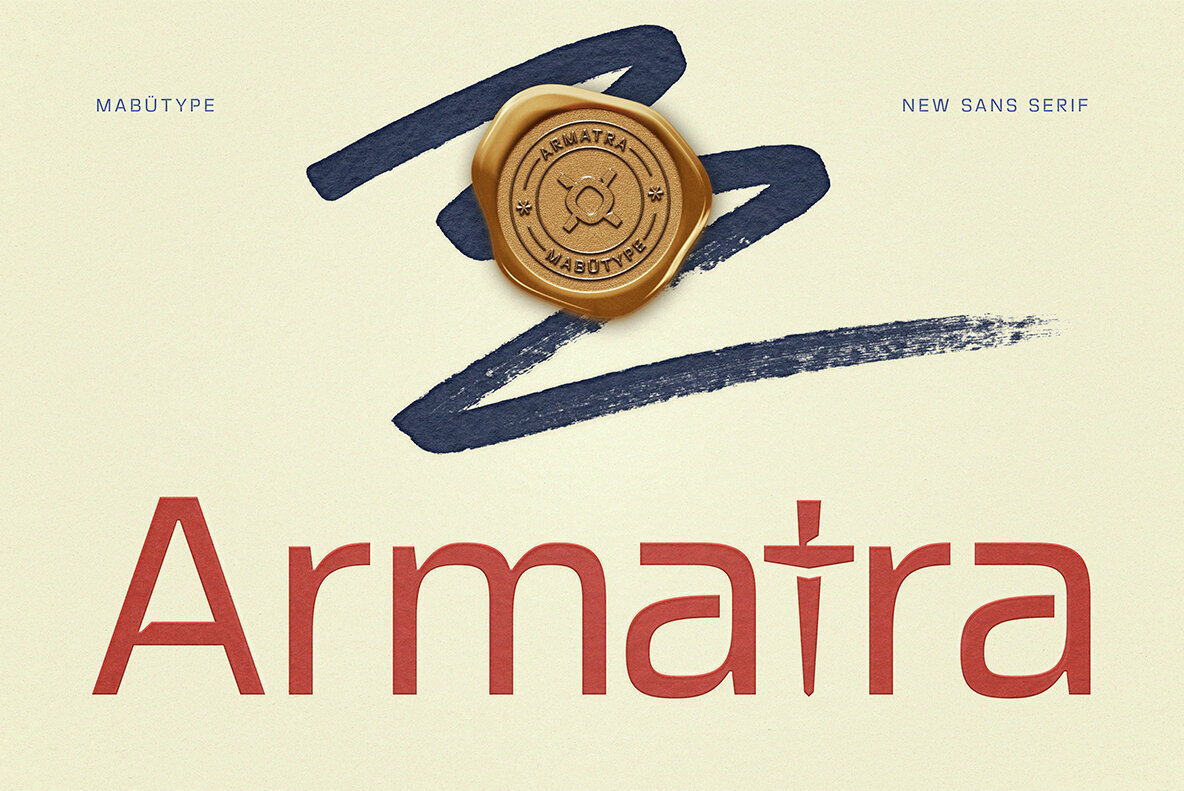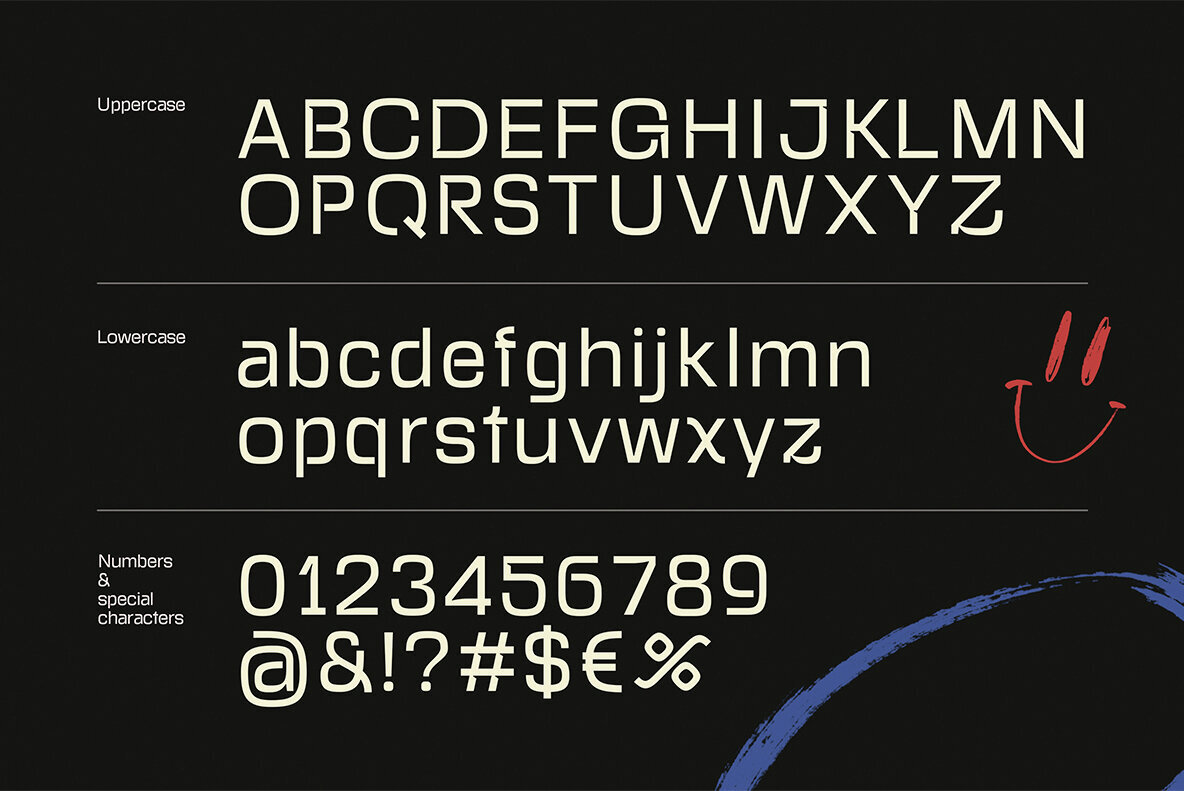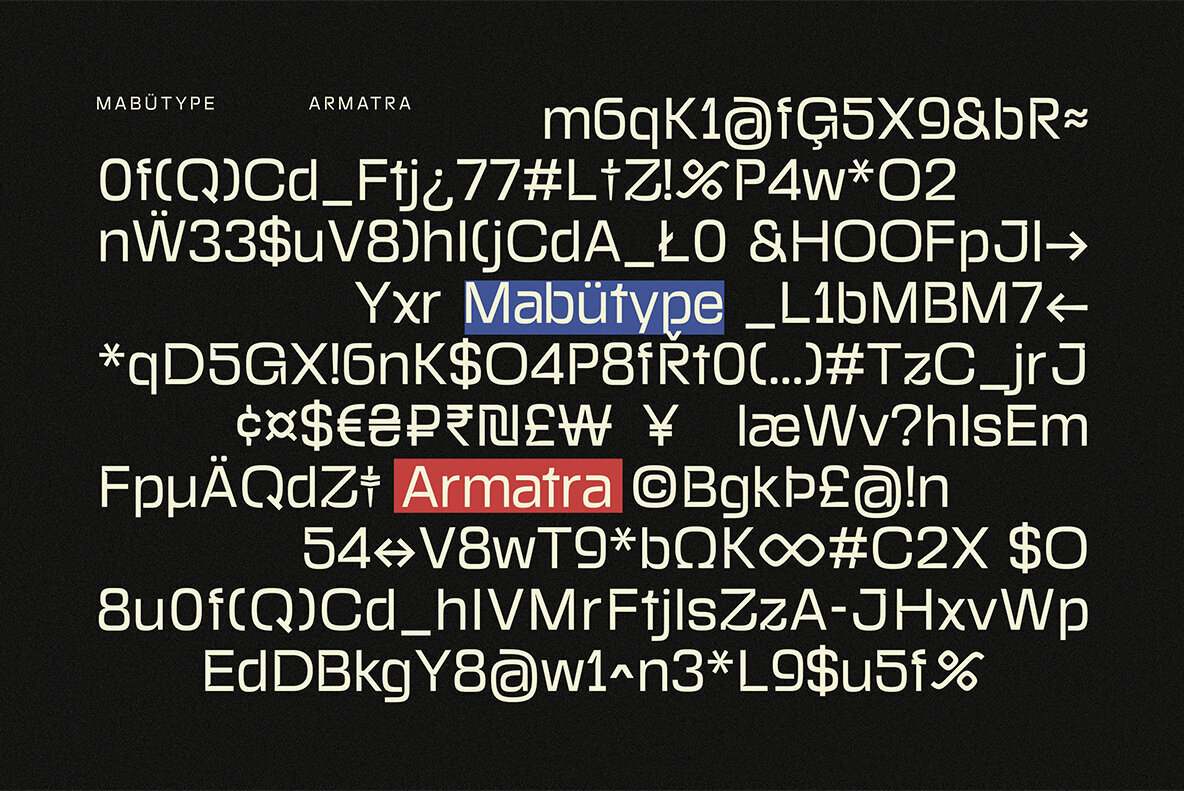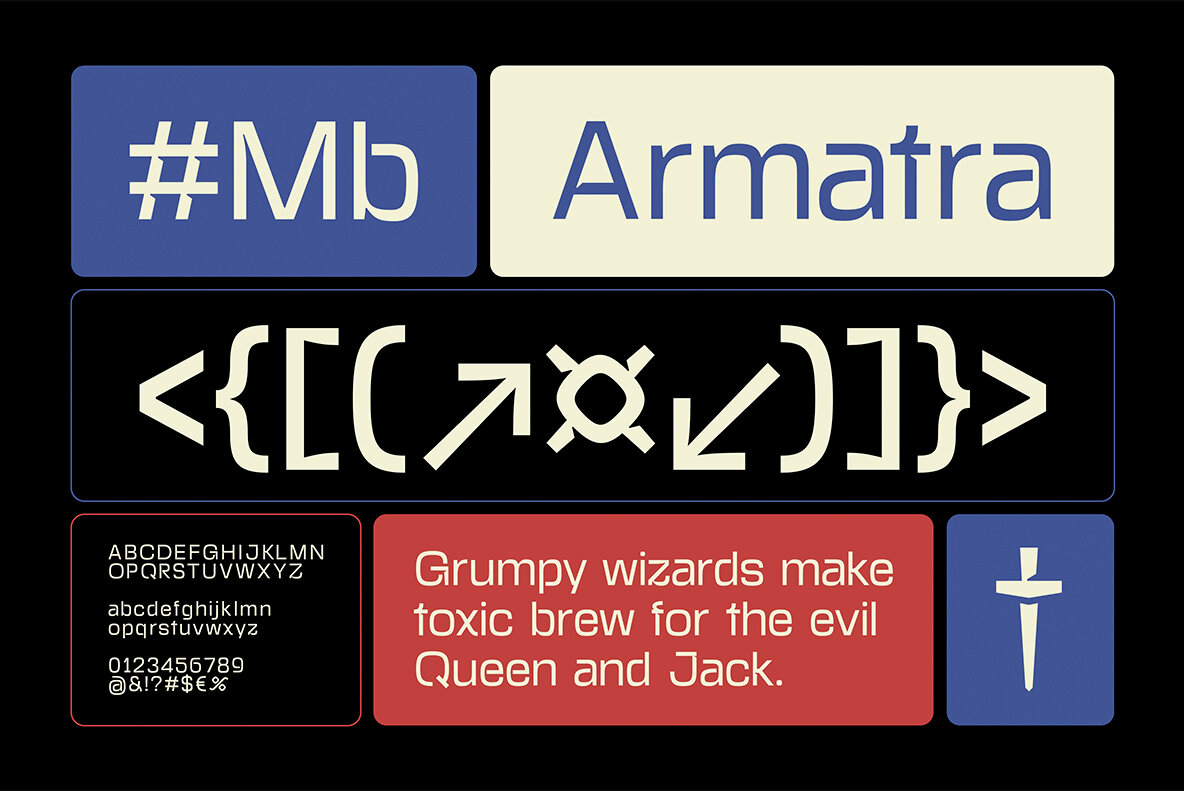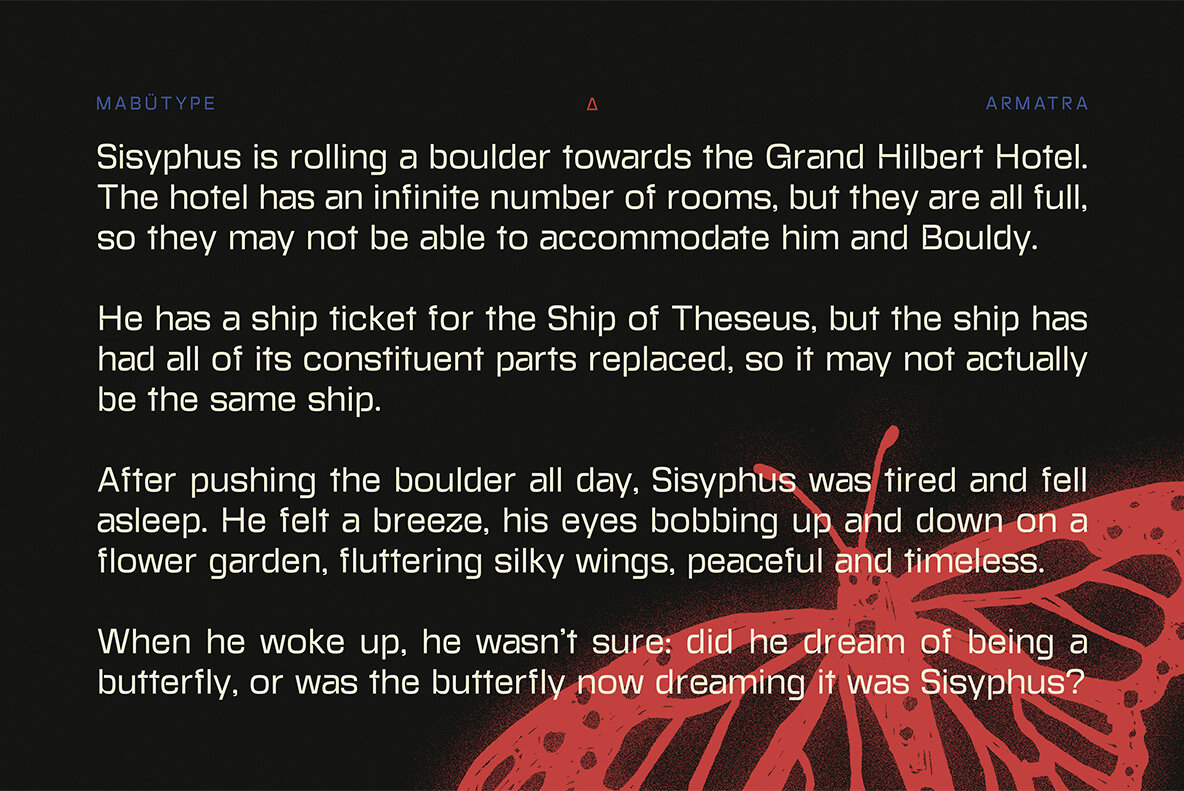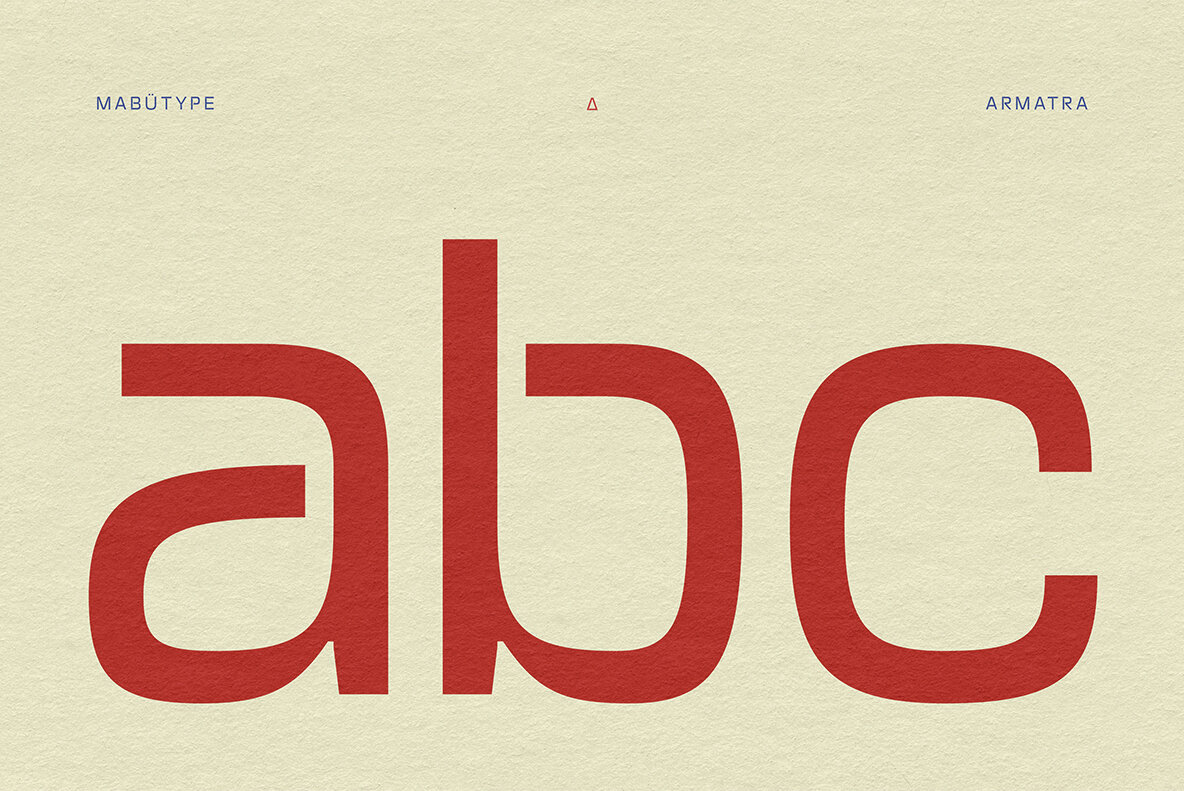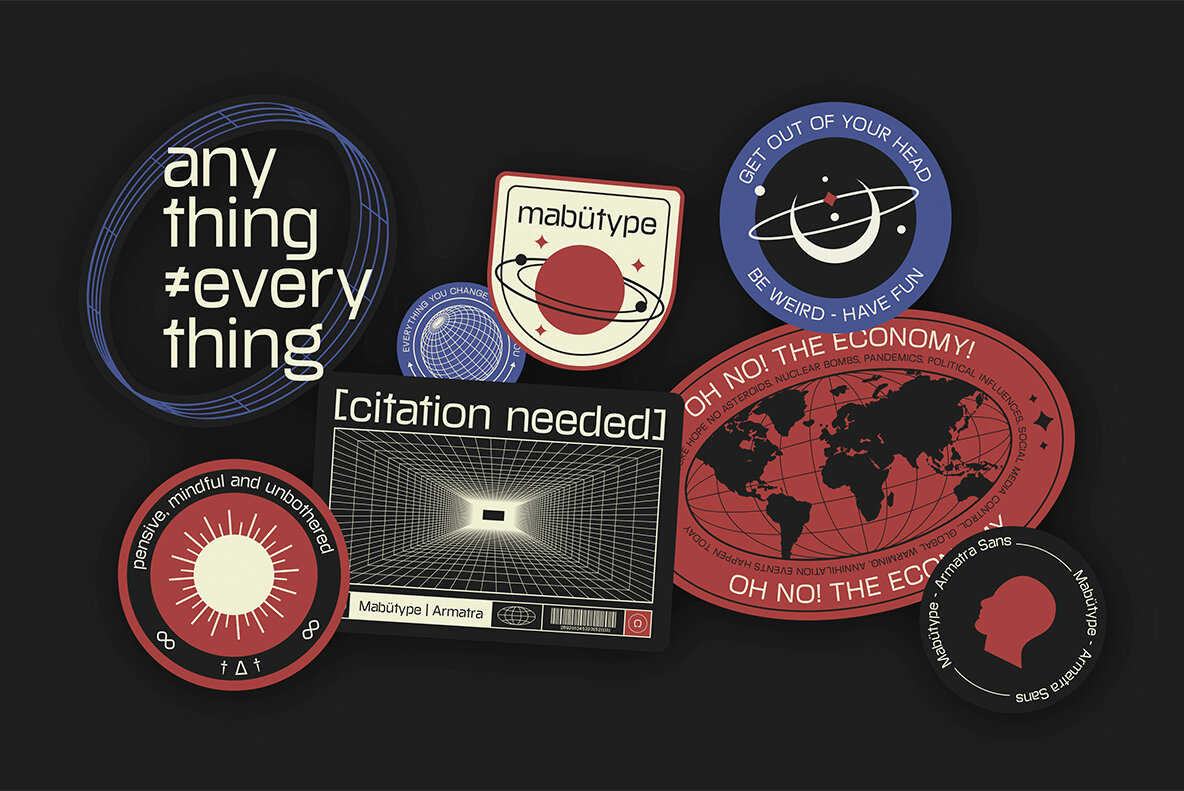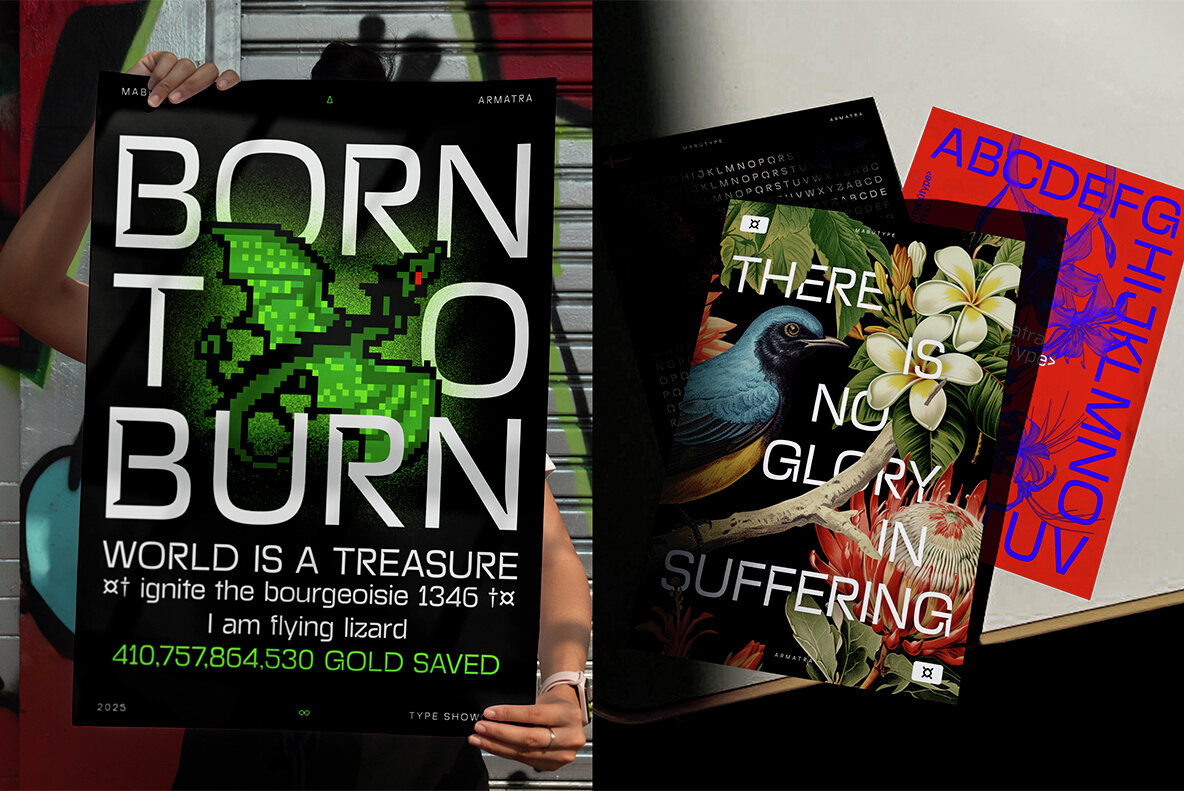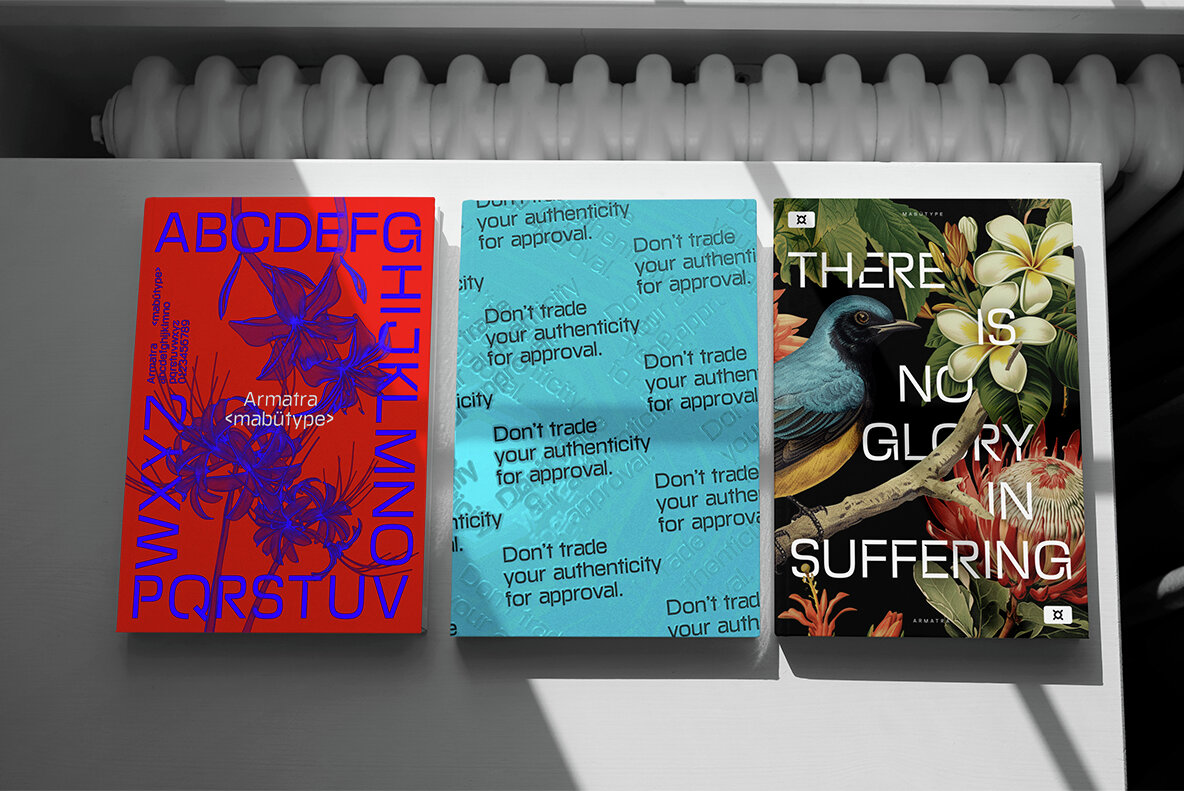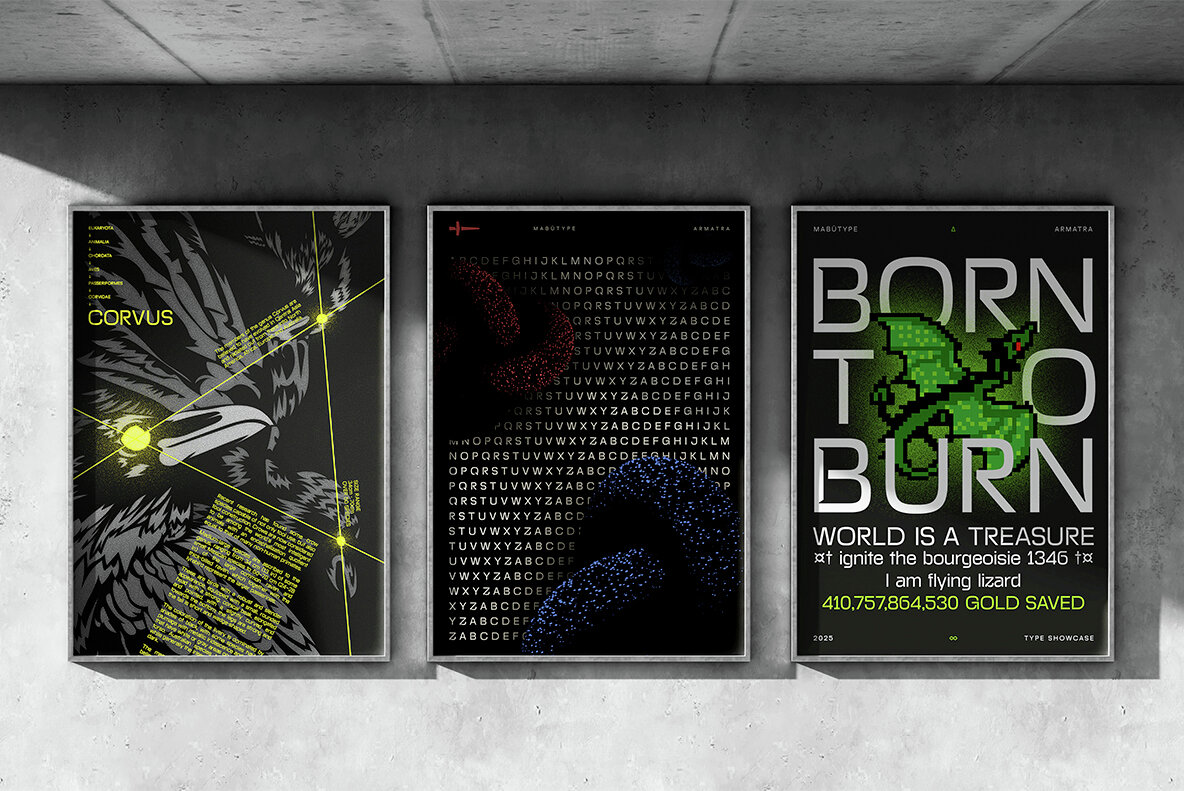
Armatra Font
Armatra Regular
Armatra offers a fresh approach to sans serif typography, perfect for innovative design endeavors. Its unique structure, featuring disconnected elements and ink traps, lends an edge to logos and headlines while maintaining clarity.Armatra: A Modern Sans Typeface for Creative Projects